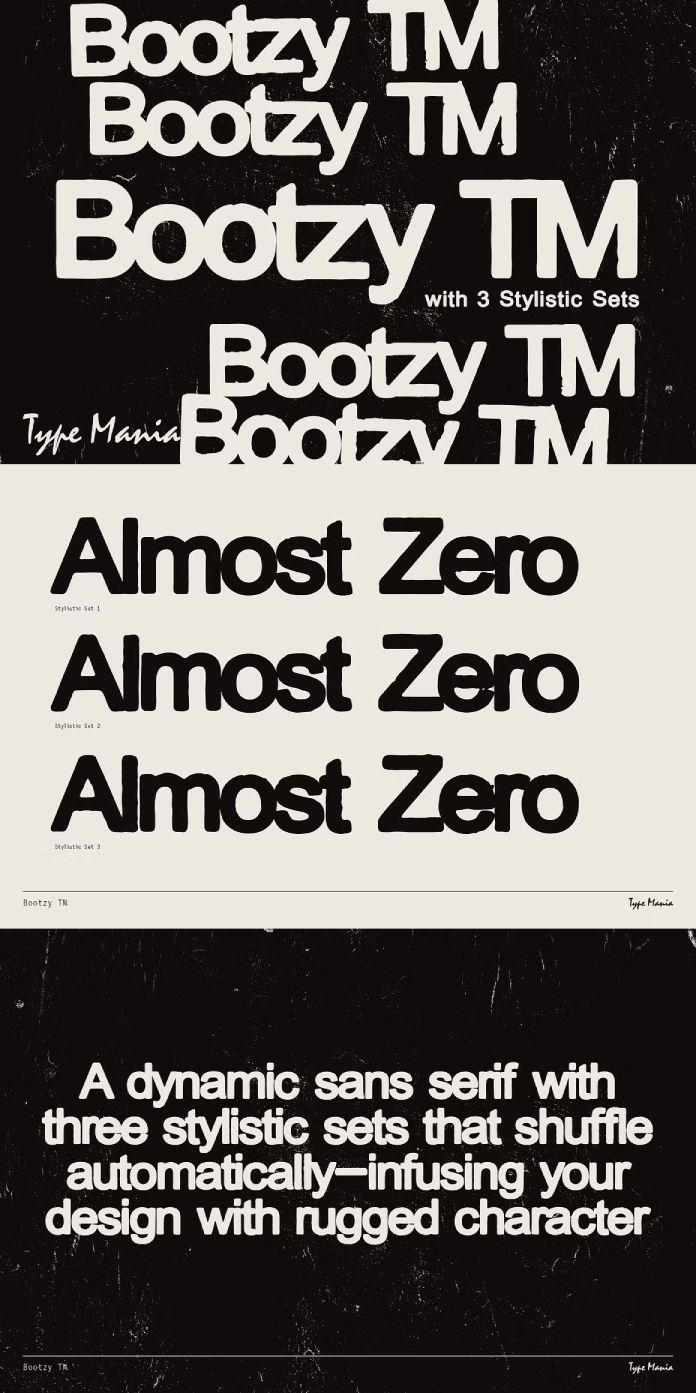
Type Mania’s Bootzy Font, Also Known as Bootzy TM, Brings Rugged Energy to Your Designs.
Are you tired of bland, lifeless fonts that fail to capture the essence of your designs? Say hello to the Bootzy TM font by Type Mania—a bold, rugged typeface designed to inject unparalleled dynamism into your projects. Whether you’re crafting flyers, album covers, or t-shirt designs, Bootzy is your ultimate companion for adding that gritty edge your creations crave.
The Rugged Elegance of Bootzy
Well, the Bootzy TM Font isn’t your average sans serif. It’s a powerhouse of personality, boasting a robust aesthetic that commands attention. Each letter is meticulously crafted to exude strength and resilience, making it perfect for projects that demand a touch of rugged elegance.
Elevate Your Designs with Stylistic Sets
What sets Bootzy apart from the crowd is its three distinct stylistic sets. These sets aren’t just variations – they’re gateways to a world of creativity. With each set, the glyphs shuffle automatically, infusing your designs with character and texture that’s unmatched by traditional fonts.
Imagine effortlessly switching between stylistic sets as you type, watching your design come to life with every keystroke. Whether you’re aiming for a vintage, distressed look or a modern, sleek vibe, Bootzy has you covered.
Seamless Integration, Endless Possibilities
Experience the Magic of the Bootzy TM Font Today
Are you ready to take your designs to the next level? It’s time to harness the power of Bootzy Font. Whether you’re a seasoned designer or just starting your creative journey, Bootzy is the ultimate tool for standing out in a sea of mediocrity.
Elevate your designs. Unleash your creativity. Experience Bootzy Font.